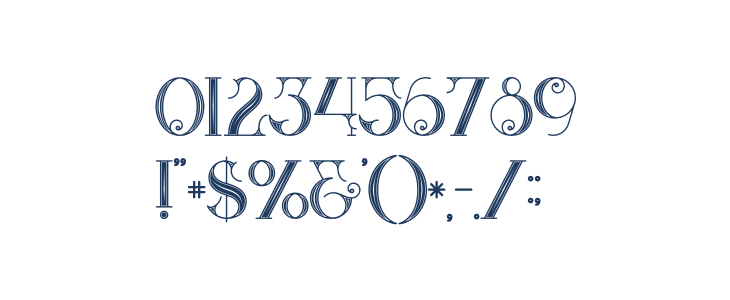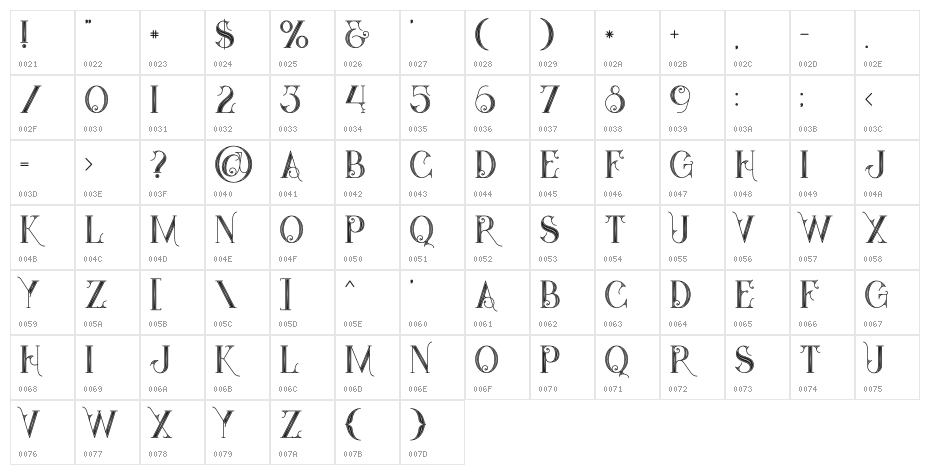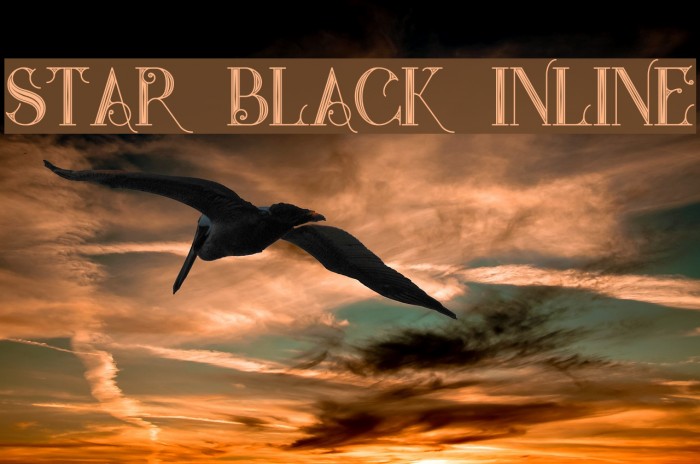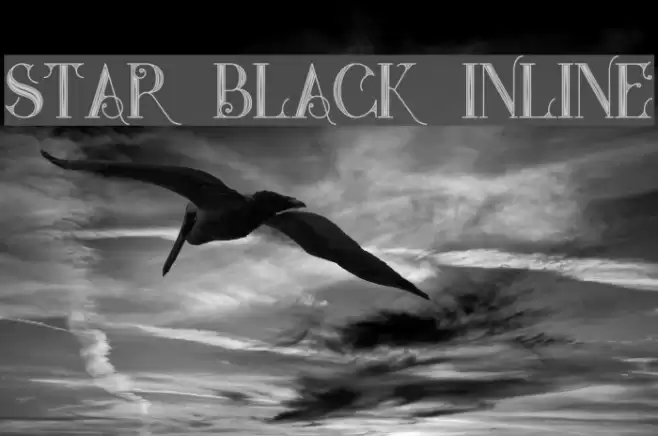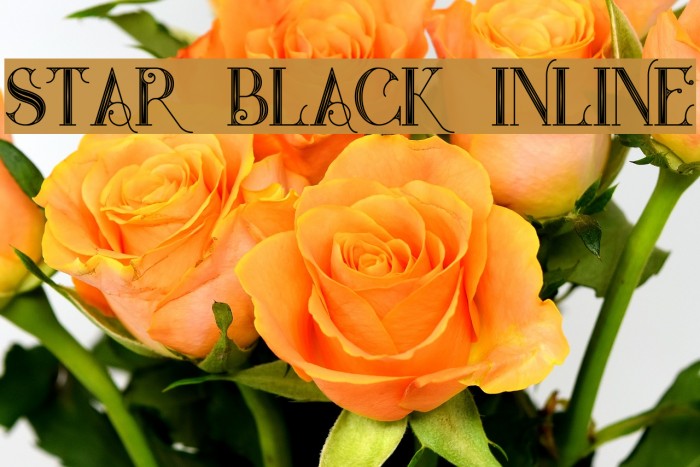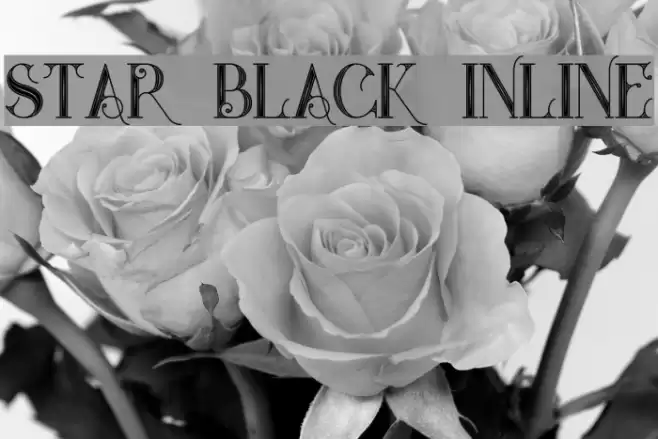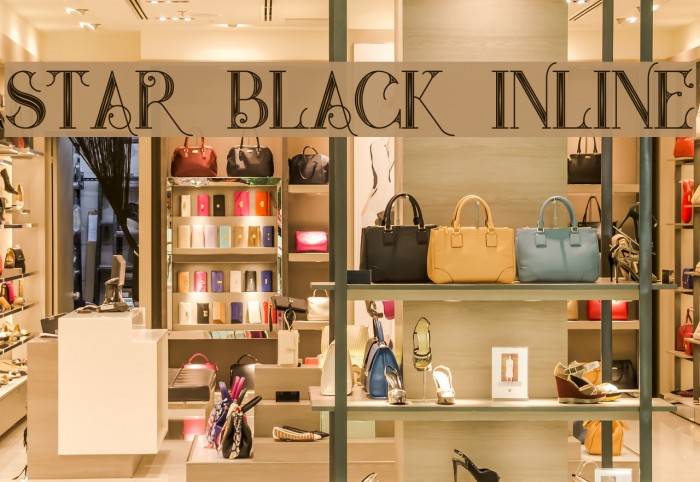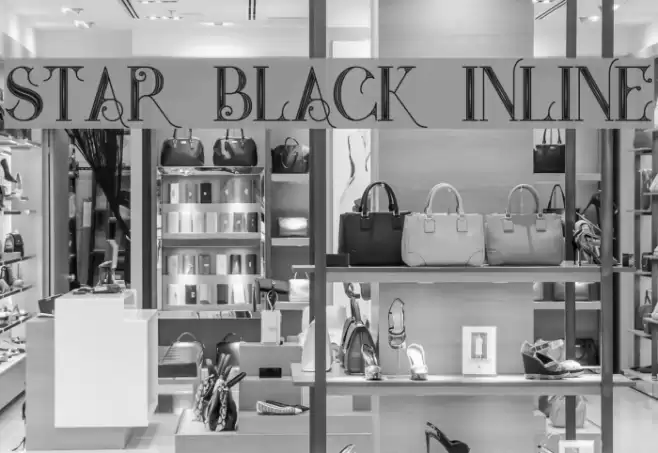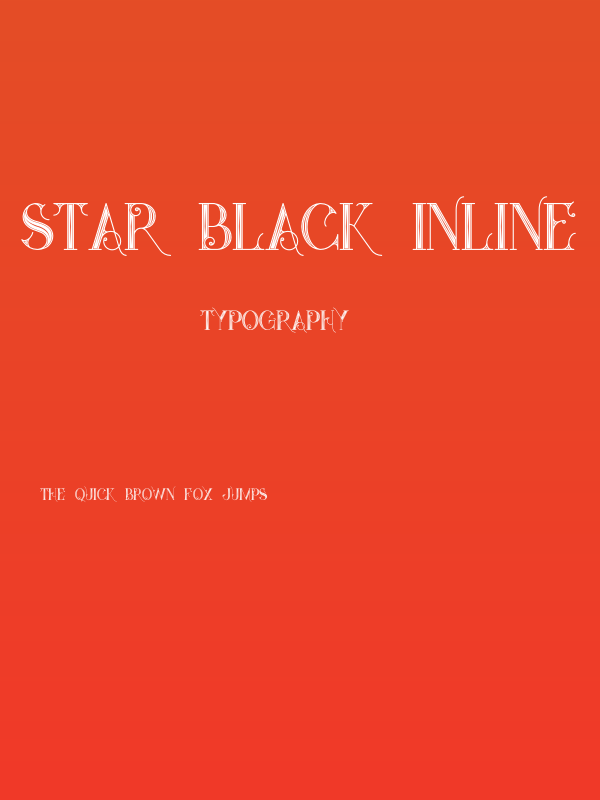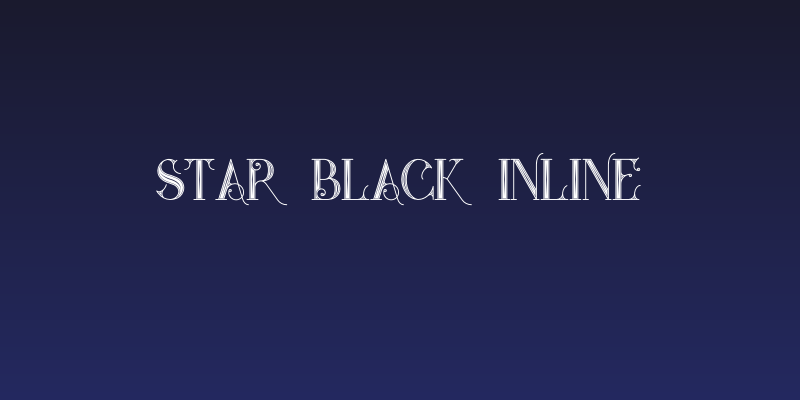
Star Black Inline Font
Star Black Inline Description
This font features an elaborate and decorative style, characterized by its intricate inline detailing and ornamental flourishes. The uppercase letters are bold and dramatic, with swirling embellishments that give a sense of movement and elegance. The numbers and special characters follow the same ornate design, making the font cohesive and visually striking. The overall appearance is both vintage and sophisticated, suitable for projects that require a touch of grandeur and artistic flair.
| Overall Style | Vintage, Decorative |
| Proposed Projects | Ideal for wedding invitations, luxury branding, high-end product packaging, and artistic posters. |